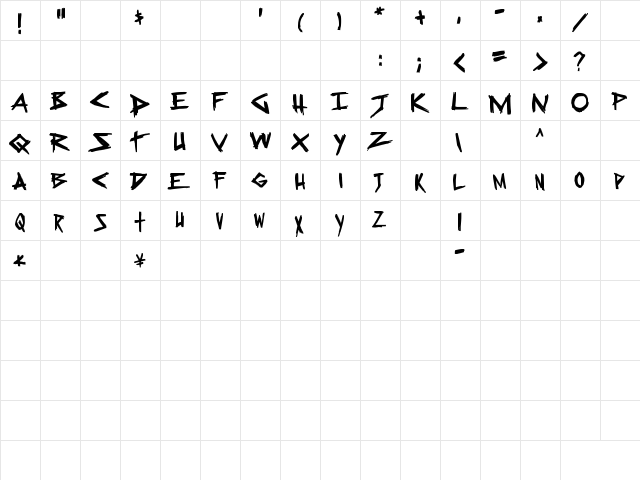
Sugar Death 2 Regular
| Designer | Andeh Pinkard |
Design Context for Sugar Death 2 Typeface
Sugar Death 2 carries an unsettling edge — its distorted letterforms are built to unsettle, perfectly suited to horror, Halloween, and dark creative work.
Ideal for Halloween projects, horror film titles, haunted house signage, and dark editorial design.
Font Pairing: Pair with a clean neutral sans-serif for body copy to let Sugar Death 2's character lead without overwhelming the composition.
Pro Tip: Sugar Death 2 works best as a headline or focal element. Pair it against plain, neutral body text to amplify the contrast.